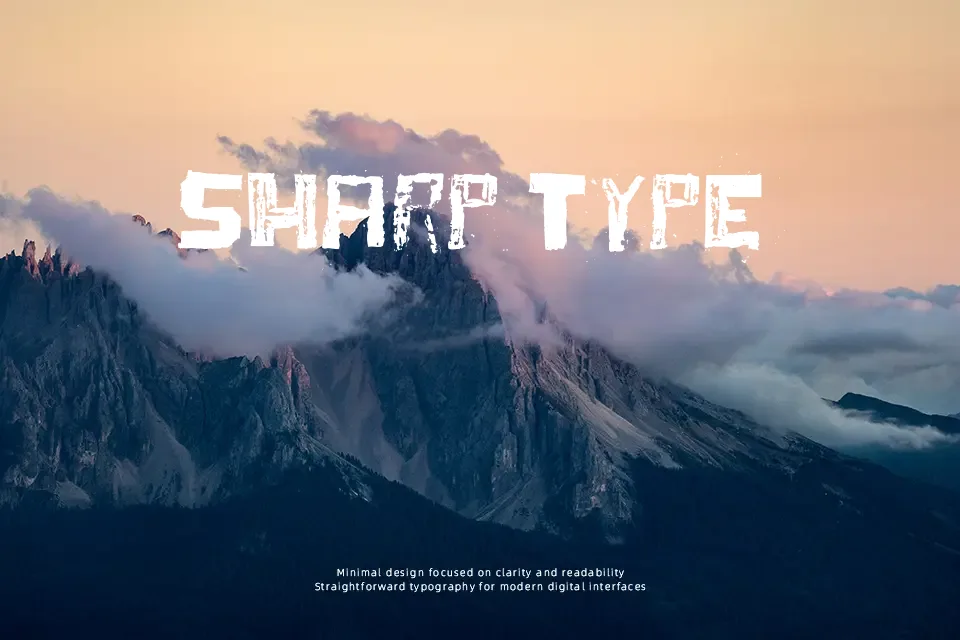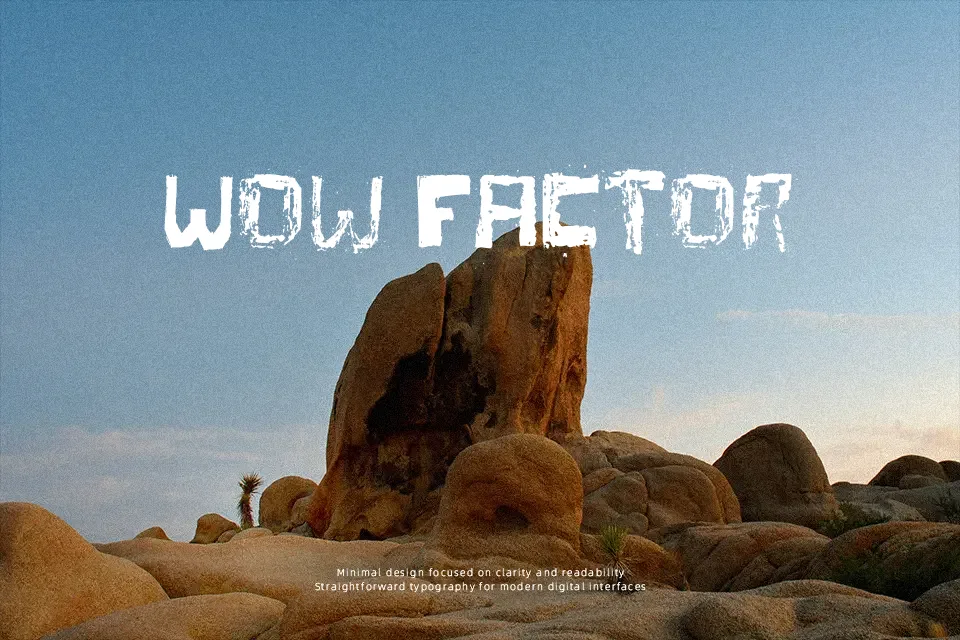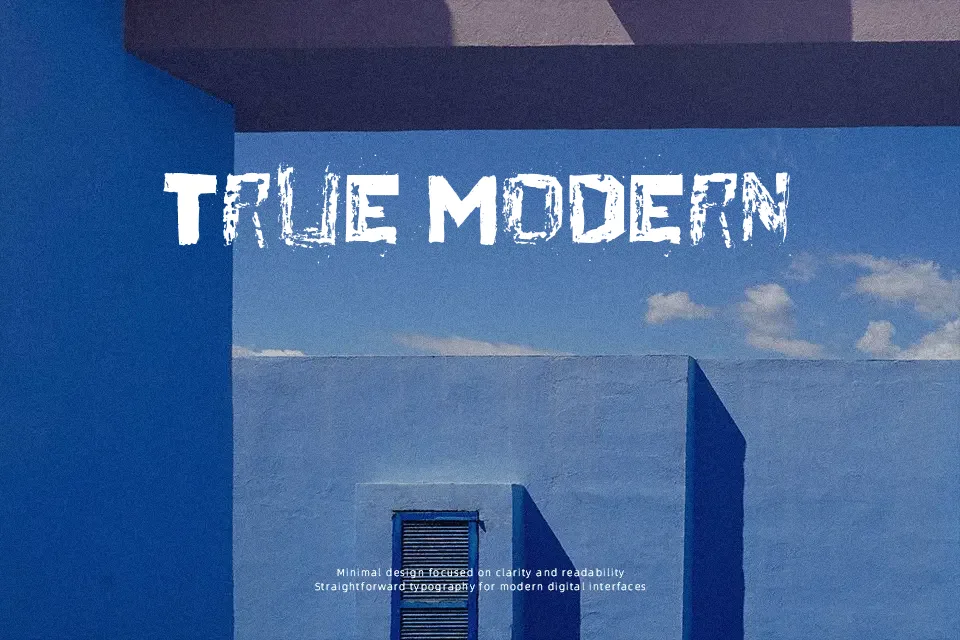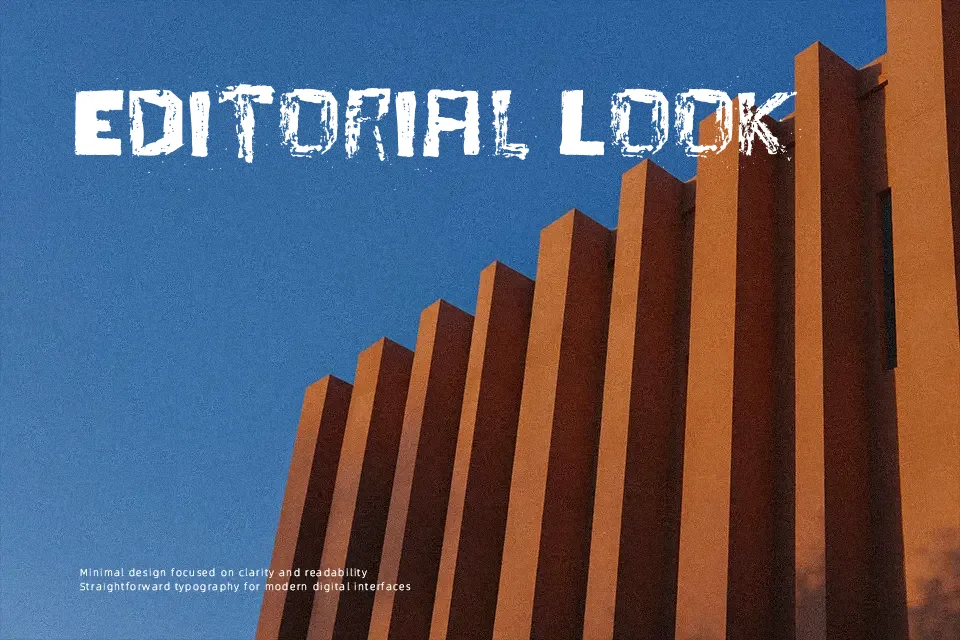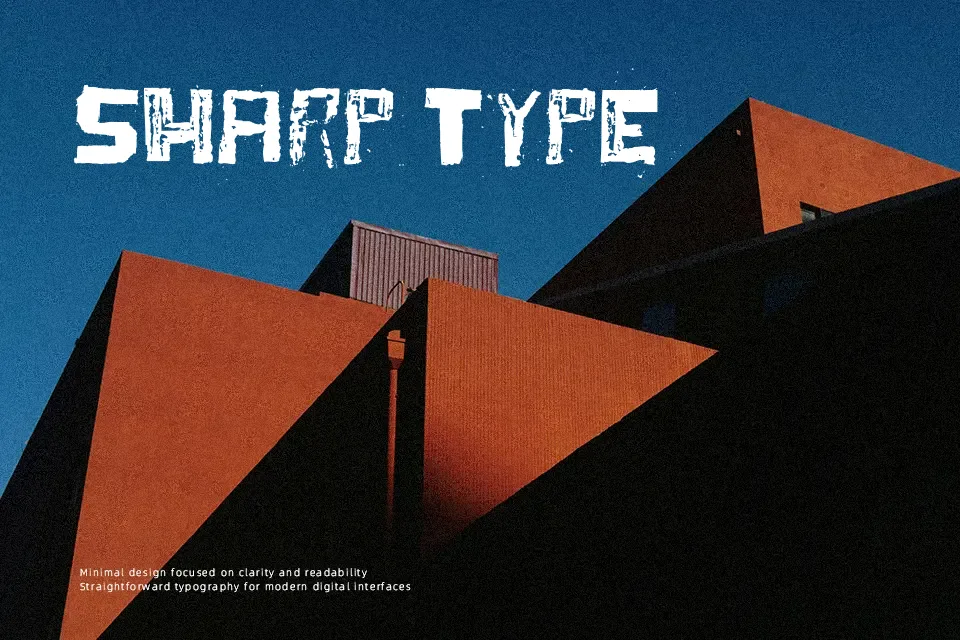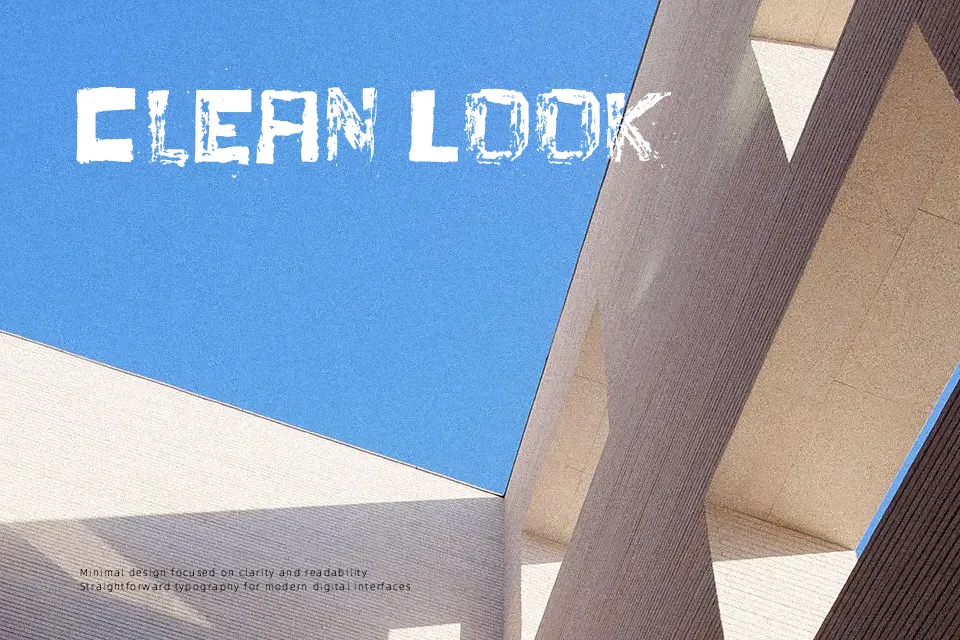
Thereza Font
Designed by Fernando Rocha
Defined by rugged silhouettes and unevenly carved contours, Thereza Font exhibits a raw display structure reminiscent of handcrafted relief printing. The strokes display deliberate asymmetry, showing variable thickness and eroded outlines that give each character a weathered physical presence. Proportions remain squarish and compact, supported by slightly loose default spacing that prevents neighboring distress marks from bleeding together. The design delivers forceful visual weight in punk zines, gig flyers, and merchandise graphics. However, the abrasive texture severely hinders legibility across continuous paragraphs or small user interfaces. The letterforms excel as expressive display anchors, but dense typesetting rapidly degrades overall readability.
Best For: music festival posters, streetwear apparel graphics, craft beer packaging
Not Ideal For: long paragraph text, small interface labels, corporate reports
Perfect for headline, music, and packaging, with a artistic and decorative style.